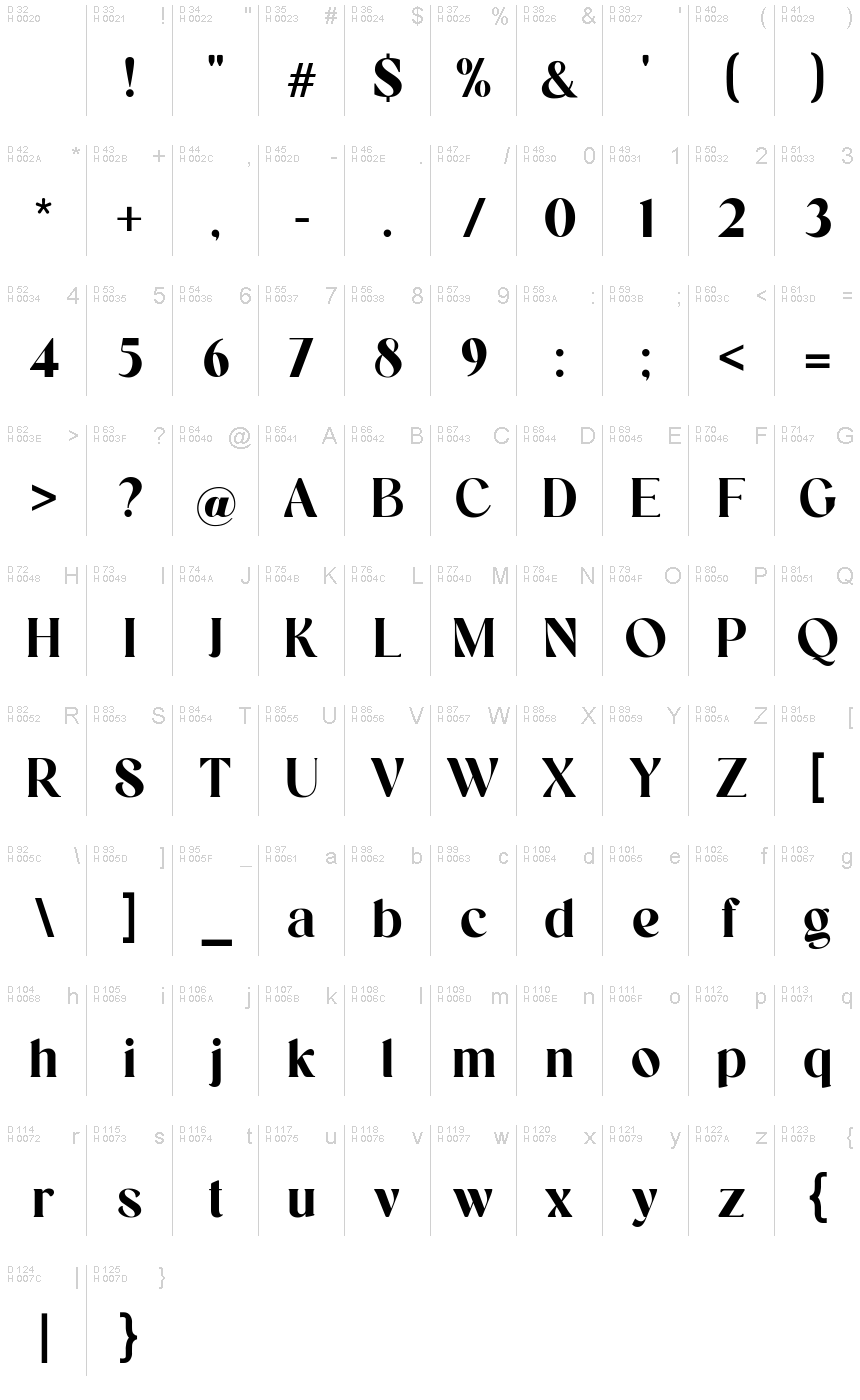
Wilhelmina
Wilhelmina, a captivating serif font crafted by UI Creative, exudes a timeless elegance that commands attention. With its refined letterforms and delicate serifs, this font radiates a sense of sophistication and sophistication, making it a standout choice for discerning design projects. Wilhelmina's balanced proportions and harmonious curves lend an air of sophistication, while its subtle details add depth and character to any composition.
This versatile font shines in a variety of design contexts, from high-end editorial pieces to luxury brand identities. Its refined aesthetic complements both classic and contemporary styles, making it a versatile tool for designers seeking to elevate their projects with a touch of understated elegance. Whether crafting elegant invitations, crafting captivating book covers, or curating impactful marketing materials, Wilhelmina by UI Creative offers a refined and timeless solution that will leave a lasting impression.